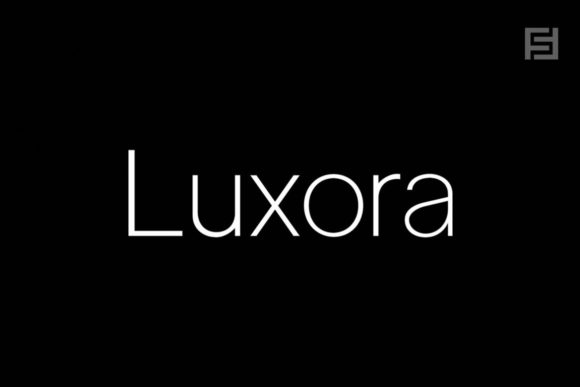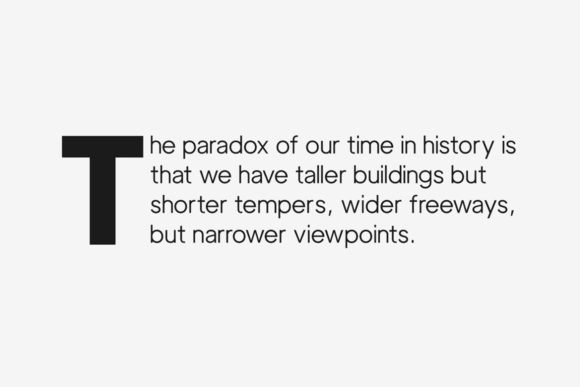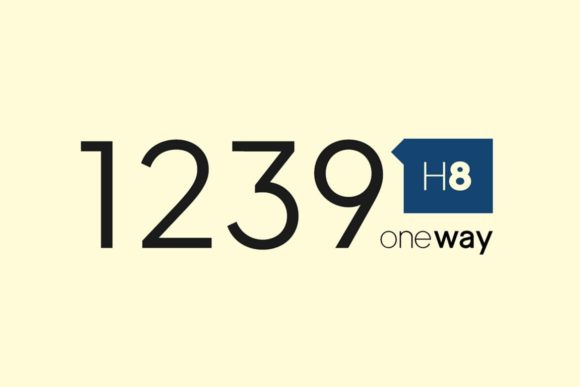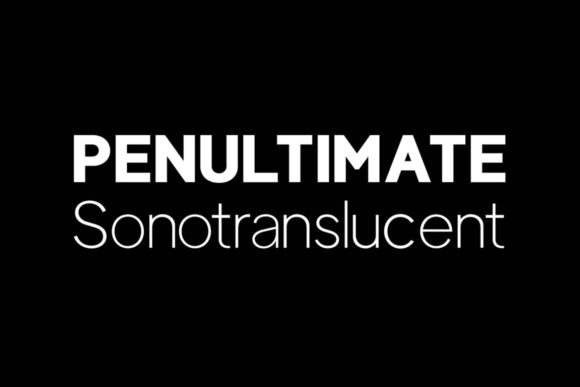
Luxora Font: A Modern, Minimalist Sans Serif for Branding & Design
About the Luxora Font
Make a bold statement with Luxora Font, a powerful and memorable font. Luxora is a minimal and neat sans serif font. It can easily be matched to an incredibly large set of projects, so add it to your creative ideas and notice how it makes them stand out!
Luxora’s clean lines and minimal design make it ideal for headlines, branding applications, and short text blocks on posters or packaging. Its crispness ensures readability at larger sizes, lending a modern and sophisticated feel. However, its minimalist nature makes it less suitable for body copy or lengthy paragraphs, where legibility at smaller point sizes suffers.
The font possesses a subtly elegant yet friendly personality. It works well for brands projecting a sense of professionalism and understated style, particularly in technology, fashion, or design contexts. Consider pairing Luxora with a warm serif like Merriweather for a balanced contrast, or a geometric sans-serif such as Montserrat for a more contemporary feel.
For a playful touch, a script font like Great Vibes used sparingly as an accent could add a touch of personality without compromising Luxora’s core elegance. Avoid pairing it with overly decorative or highly contrasting fonts, which would detract from its refined aesthetic.